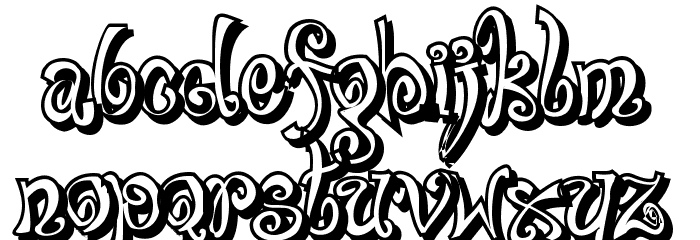
Bajareczka Shadow Font
This font features a bold and decorative style with a shadow effect that gives it a three-dimensional appearance. The letters are intricately designed with flourishes and curves, creating a dynamic and eye-catching look. The uppercase and lowercase letters maintain a consistent style, with the shadow adding depth and emphasis. The numerals and special characters are equally stylized, ensuring a cohesive appearance across all elements. This font is ideal for projects that require a bold statement and a touch of artistic flair.
A bold, decorative font with a shadow effect and intricate flourishes.
- Proposed Projects: Ideal for posters, logos, headlines, and any design needing a bold, artistic touch.
- Overall Style: Decorative